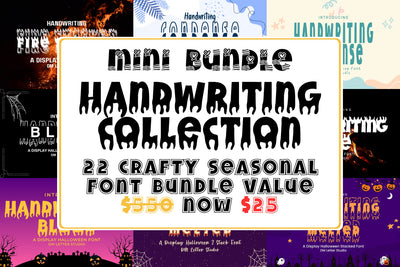
Mini Bundle: Handwriting Collection
Get ready to craft all year long with the Mini Bundle: Handwriting Collection by DM Letter Studio! This handcrafted seasonal font bundle includes 22 fonts, perfect for holidays, playful monograms, bold displays, and year-round creative projects.
Whatโs Inside the Collection?
22 Unique Fonts โ Featuring fun, crafty, and seasonal handwritten styles across monogram, stacked, condensed, melted, varsity, and festive themes.
Multiple Seasonal Themes โ Includes fonts for Thanksgiving, Valentineโs Day, Halloween, and more!
Versatile Usage โ Perfect for mugs, t-shirts, invitations, greeting cards, logos, social posts, and more!
Why Youโll Love This Bundle:
๐ฅ Stylish & Thematic Fonts โ Each font is designed with personality and seasonality in mind.
๐ฅ Perfect for Crafters & Designers โ Especially great for personalized gifts, decor, and seasonal branding.
๐ฅ All-Year-Round Value โ From spooky October designs to romantic February vibes โ itโs got everything!
Fonts Included:
Handwriting Thanksgiving โ Warm and festive, ideal for cozy seasonal projects.
Handwriting Valentine โ Sweet and romantic, with charming handwritten curves for heartfelt creations.
Handwriting Stacked โ A clean stacked font for modern crafts and clean layouts.
Handwriting Stacked Monogram โ A stacked variation perfect for initials and decorative labels.
Handwriting Simple Stacked โ Minimalistic and neat for everyday designs and casual branding.
Handwriting Blood โ Drippy and spooky, great for Halloween and horror-themed designs.
Handwriting Blood Stacked โ A stacked variant of the blood font, perfect for spooky headlines.
Handwriting Blood Monogram โ Add creepy charm to monogram projects with this eerie style.
Thornblade โ Sharp and edgy, a fantasy-inspired font that feels dark and dramatic.
Handwriting Varsity โ Athletic and bold, great for sporty merch or collegiate vibes.
Handwriting Varsity Monogram โ Blocky and structured, ideal for initials and logo badges.
Handwriting Varsity Stacked โ A strong stacked look that screams team spirit.
Handwriting Varsity Stacked Monogram โ Merges sports style with classy personalization.
Handwriting Fire โ A fiery, rugged font with energetic brush textures.
Handwriting Fire Stacked โ Packed with flame-like intensity in a stacked layout.
Fire Monogram โ Bold and burning with attitude, ideal for flame-inspired monogramming.
Handwriting Condense โ Tall and slim with clean strokes, great for compact designs.
Handwriting Condense Stacked โ Combines condensed letters in an eye-catching stacked format.
Condense Stacked Monogram โ For initials that stand tall and proud in a sleek stacked format.
Handwriting Melted โ A drippy, melty font thatโs both fun and a little spooky.
Handwriting Melted Stacked โ The same gooey fun in a tidy stacked style.
Melted Stacked Monogram โ Quirky and creepy monogram option with a melty twist.